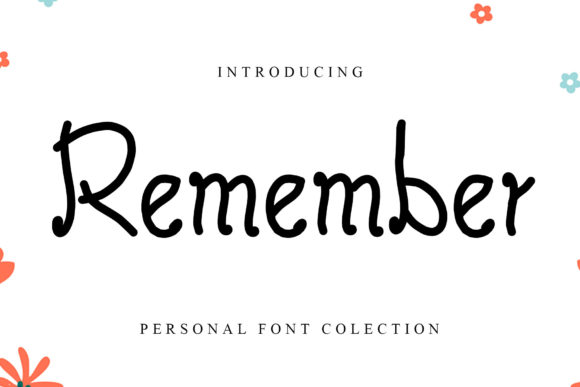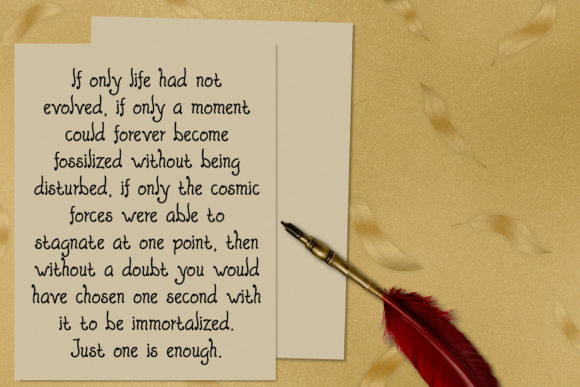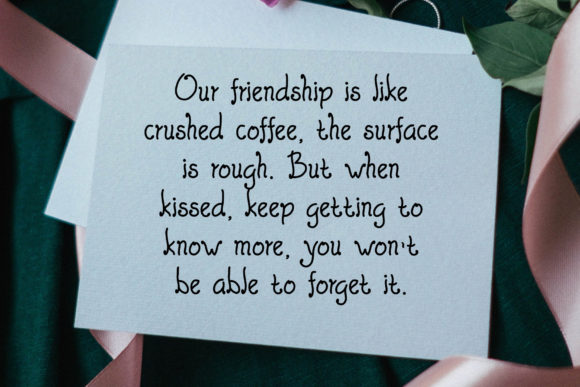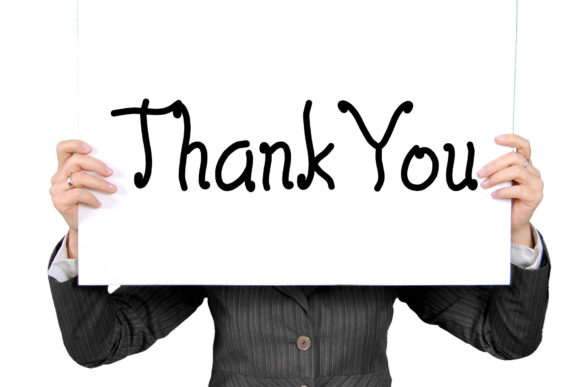
Remember Font
About Remember Font
Remember is a sweet and friendly handwritten font. Its natural and unique style makes it incredibly fitting to a large pool of designs. Have fun with this beautiful font and explore its endless variations.